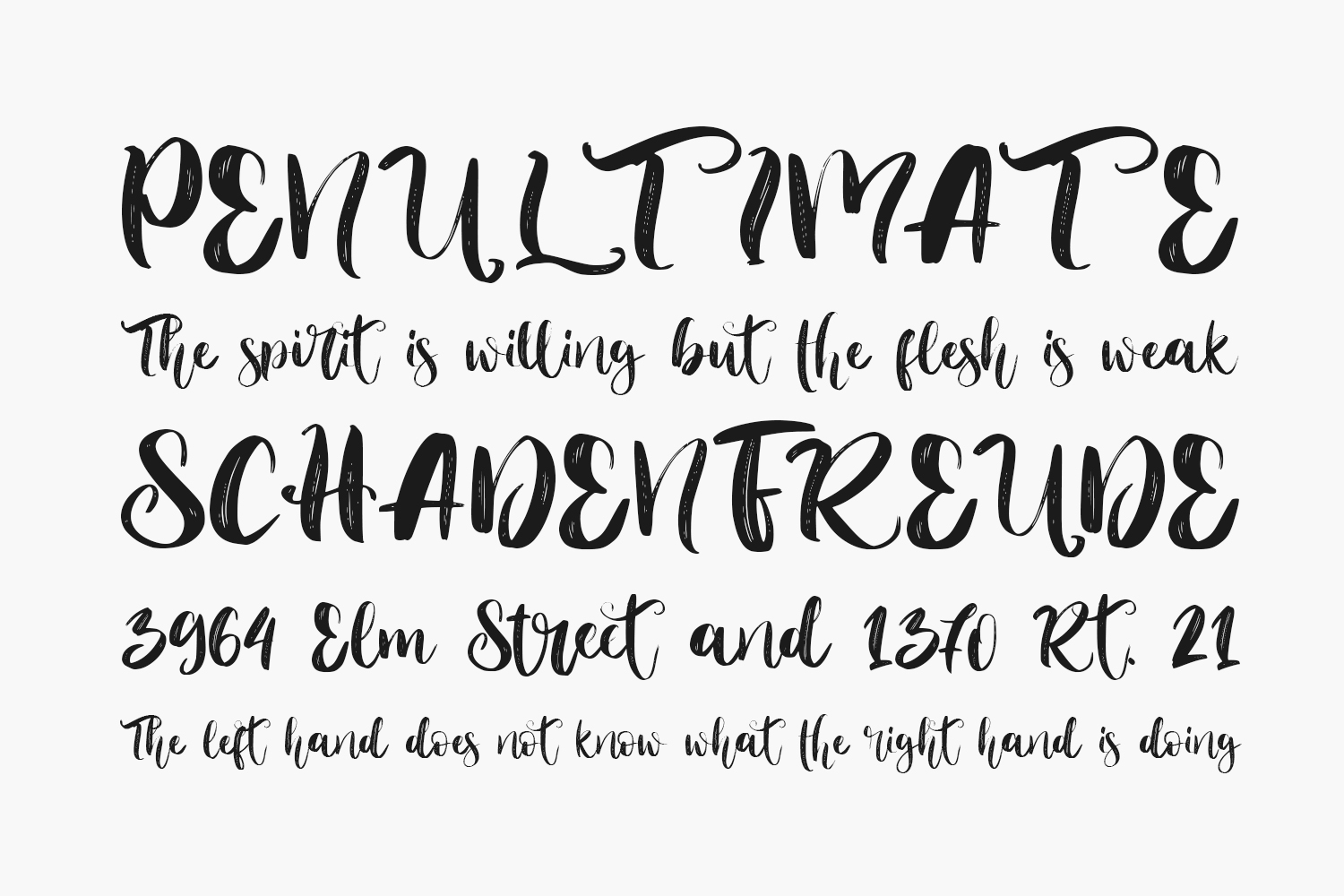
Floral Dream Free Font is a delicate and elegant brushed handwritten font. It looks beautiful on a variety of designs requiring a personalized style, such as wedding invitations, thank you cards, weddings, greeting cards, logos, and so on. Floral Dream Free Font was designed by Letterara and is free for personal use only. Please purchase the full version for commercial use.